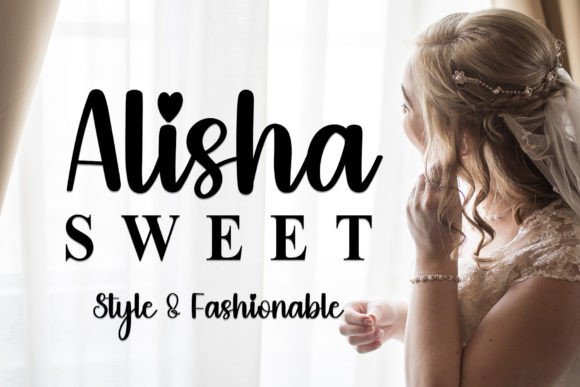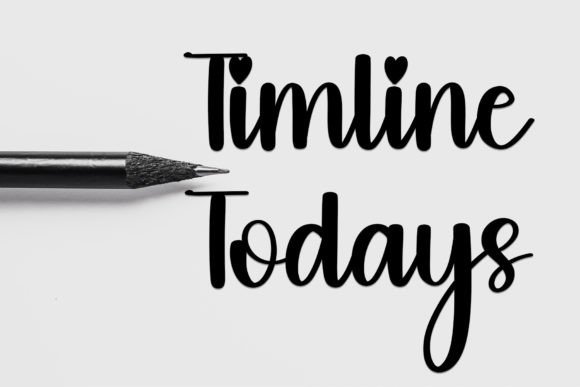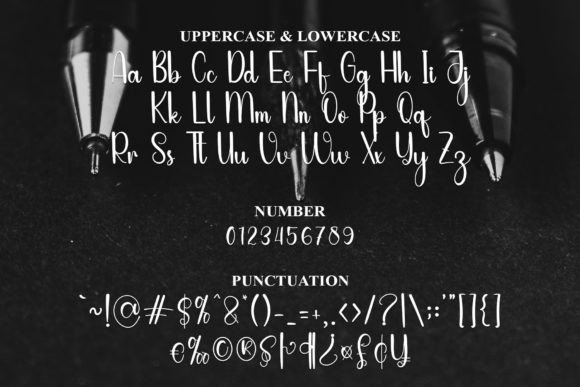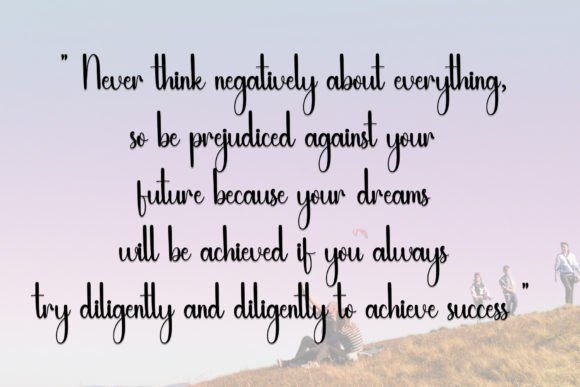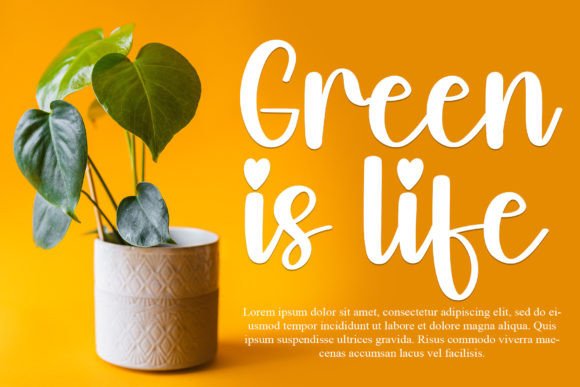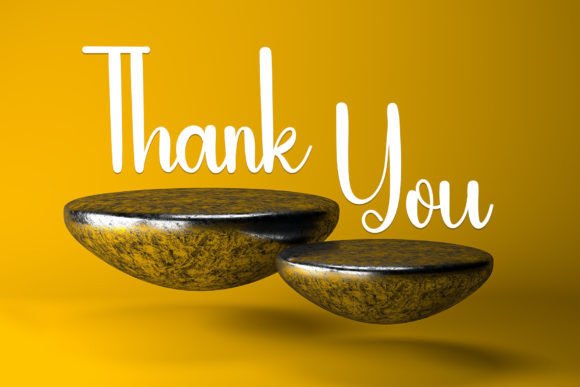
Introducing Everything Font: The Ultimate Handwritten Display Font for Your Creative Projects
Are you a designer, crafter, or DIY enthusiast looking for a font that can add a touch of romance and elegance to your projects? Look no further than Everything Font, an enchanting handwritten display font that is sure to captivate your audience. With its versatile design and wide range of applications, Everything Font is the perfect choice for anyone looking to add a personal and whimsical touch to their work.
The Charm of Everything Font
Everything Font is a beautifully crafted handwritten display font that exudes a sense of romance and sophistication. Its elegant and flowing lines are perfect for creating eye-catching headlines, titles, and phrases that are sure to grab attention. The font’s unique and charming design makes it ideal for a wide range of projects, from greeting cards and invitations to posters, flyers, and digital media.
One of the best things about Everything Font is its versatility. This font can be used for a wide range of applications, including:
• Greeting cards and invitations: Add a personal touch to your cards and invitations with Everything Font’s elegant and handwritten design.
• Headlines and titles: Create eye-catching headlines and titles for your posters, flyers, and digital media with this beautiful font.
• Branding and packaging: Use Everything Font to create unique and memorable branding and packaging for your products.
• Digital media: Add a touch of elegance and sophistication to your digital media, including social media graphics, blog posts, and website headers.
Why Choose Everything Font?
So why choose Everything Font over other fonts? Here are just a few reasons:
• Unique and charming design: Everything Font has a unique and charming design that is sure to set your projects apart from the rest.
• High-quality and legible: This font is designed to be high-quality and legible, making it perfect for both print and digital media.
Tips for Using Everything Font
Here are a few tips for using Everything Font in your projects:
• Use it sparingly: Everything Font is a beautiful font, but it can be overwhelming if used too much. Use it sparingly to create emphasis and add a touch of elegance to your projects.
• Pair it with other fonts: Everything Font pairs well with other fonts, including serif and sans-serif fonts. Experiment with different pairings to find the one that works best for your project.
• Experiment with colors: Everything Font looks great in a variety of colors, from bold and bright to soft and pastel. Experiment with different colors to find the one that works best for your project.
Everything Font is a beautiful and versatile handwritten display font that is perfect for designers, crafters, and DIY enthusiasts. With its unique and charming design, high-quality and legible style, and wide range of applications, this font is sure to add a touch of romance and elegance to your next project. Whether you’re creating greeting cards, headlines, or digital media, Everything Font is the perfect choice.